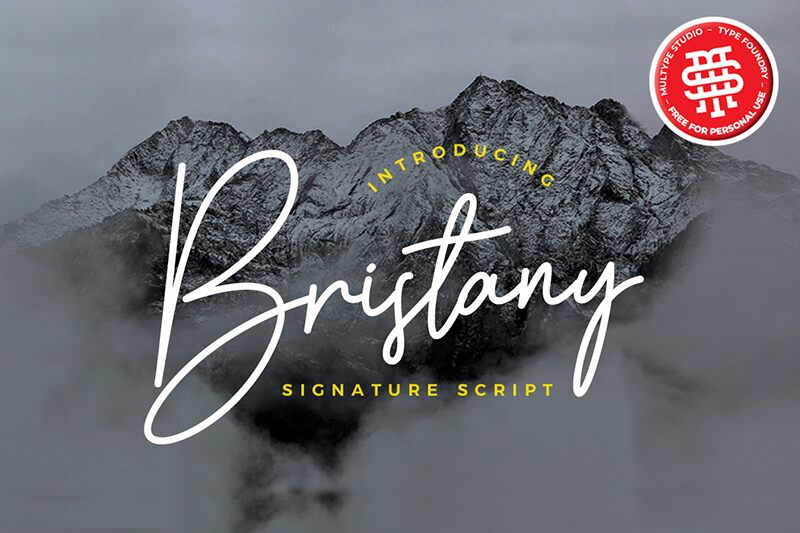
Bristany emerges from the creative minds at Multype Studio, offering a handwritten script font that exudes elegance and individuality. With its light weight and crisp, inky flow, Bristany adds a personal touch to every design. The font's distinctive curves capture the essence of bespoke craftsmanship, making it an ideal choice for a myriad of applications-from the subtlety of wedding invitations to the boldness required in branding and logos.
Delicate yet impactful, Bristany is not just a typeface; it's an artistic statement. Whether gracing the labels of artisanal products or elevating social media content with its refined presence, this font brings sophistication to photography watermarks and tailored stationery alike. Its versatility ensures that any project infused with Bristany stands out with an authentic handwritten feel.
Bristany